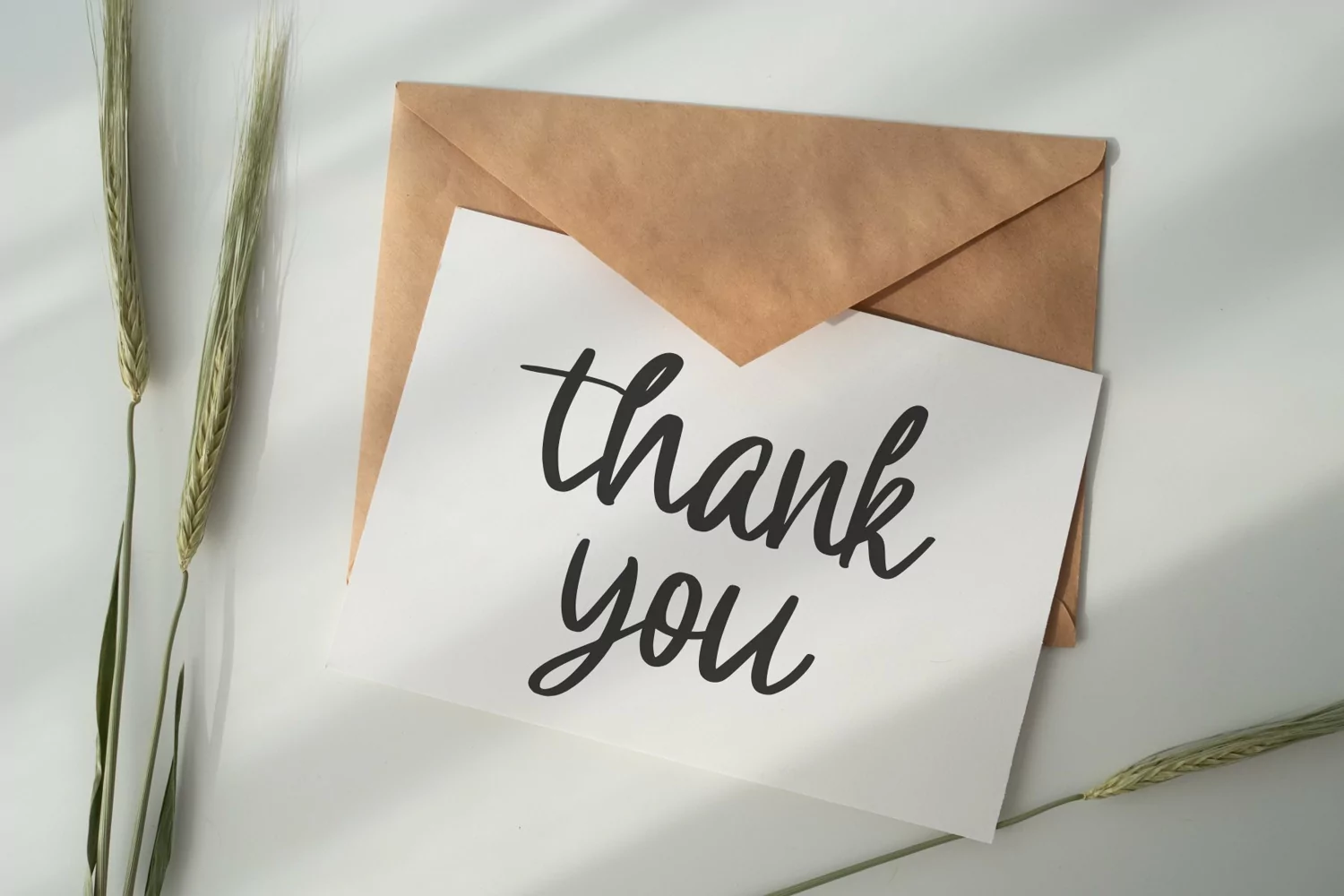
Delmonte is a sweet and cursive handwritten font. This soft font will look beautiful on a variety of your designs. It will add a fun and romantic touch to any of your projects! Great for branding, logos, wedding purposes, greeting cards, fashion, lookbooks, marketing promotions